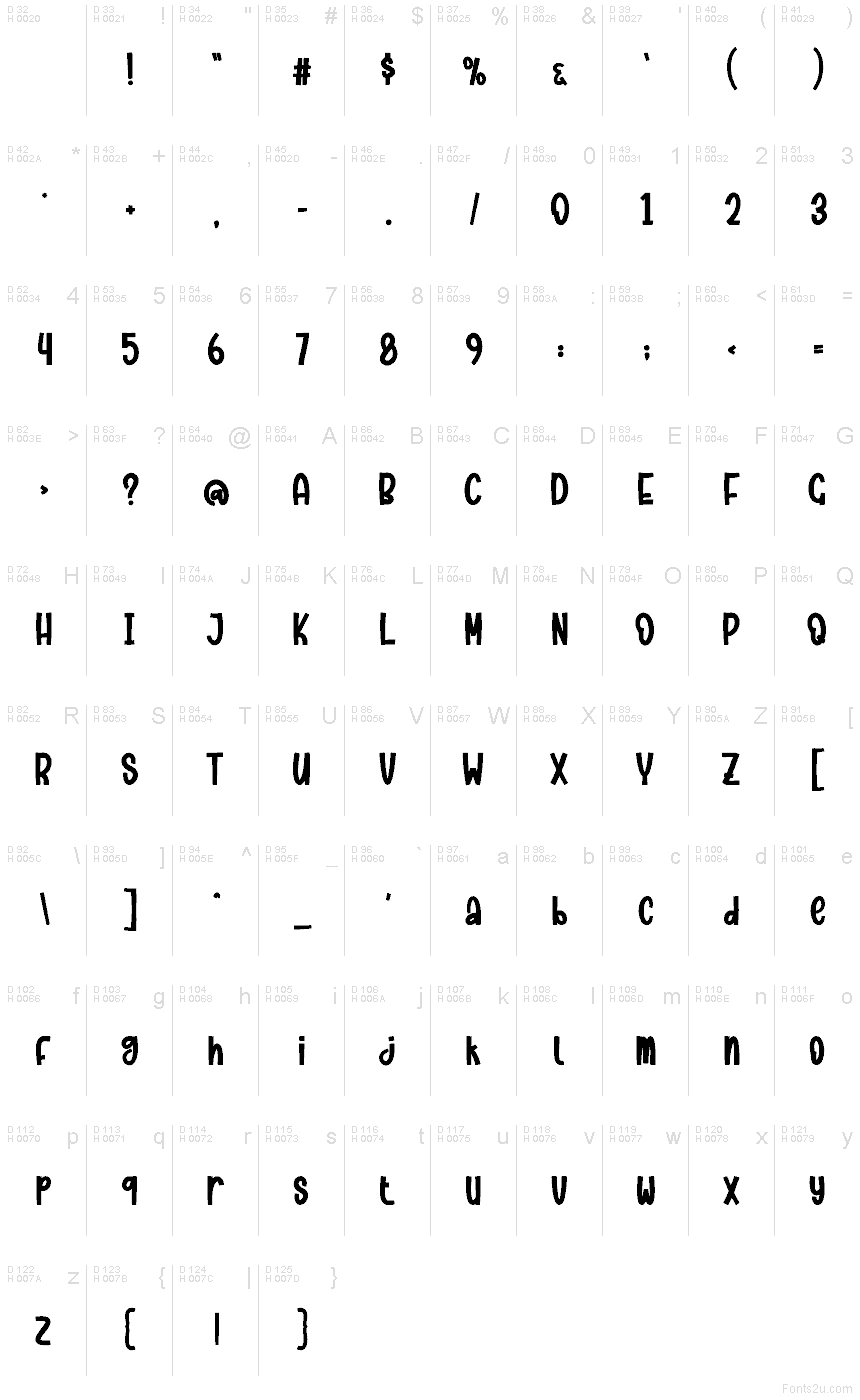
Rainbow Unicorn
Rainbow Unicorn font is a condensed cartoon font designed by Scratchones. With its colorful and vibrant appearance inspired by mid-20th-century advertising fonts, the typeface brings a playful and whimsical touch to any design project. This free display font is unmistakably friendly with casual rounded characters that suit diverse projects.
The joyful font can bring life to children’s books, comic texts, video games, and playful branding. Other uses include kids’ parties or event invitations, posters/cards for birthdays or adventure events, website designs for preschool institutions, retail toy shops or candy shops logos, etc.